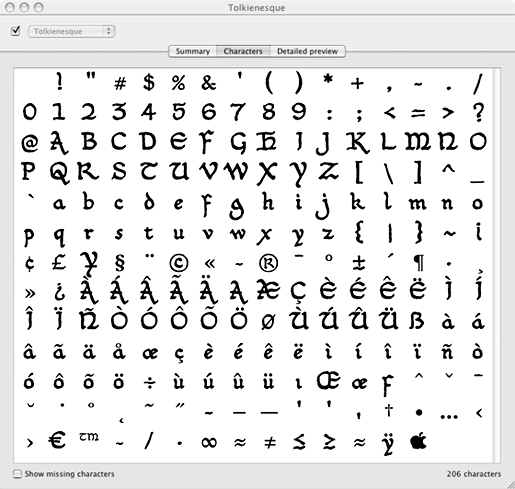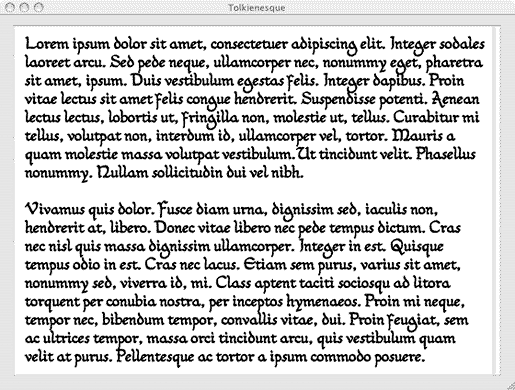
A fantasy script font inspired by the
calligraphy of the author J.R.R.Tolkien
This is a distressed script font based loosely on Tolkien's own calligraphy.
Like most Tolkien fonts, this naturally has a hand-drawn feel and might be suited for a project that requires a vaguely medieval or fantasy-like quality. See below for examples of the font as body text, and a reference chart showing the full character set.
example of Tolkienesque font
Tolkienesque Regular - character set